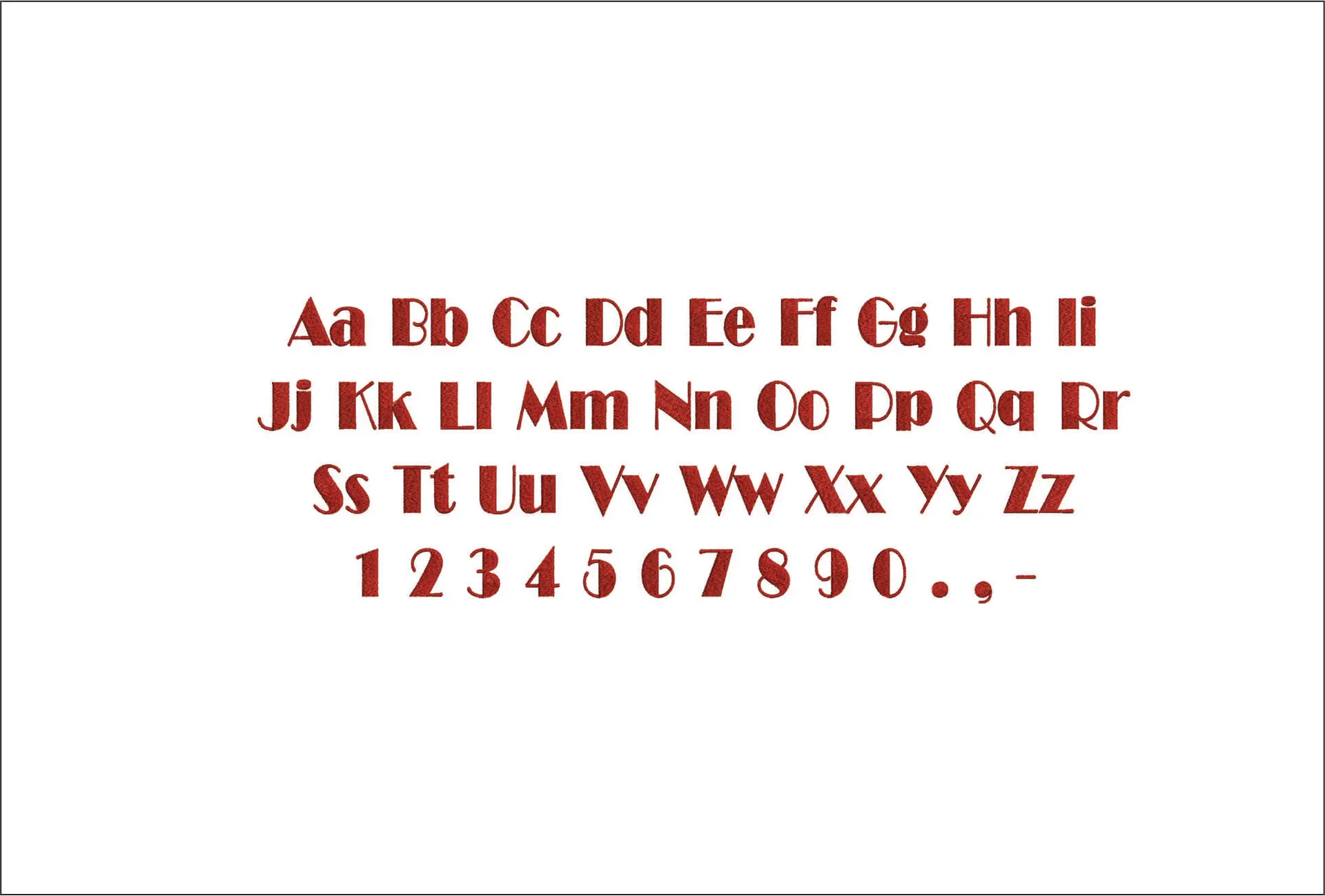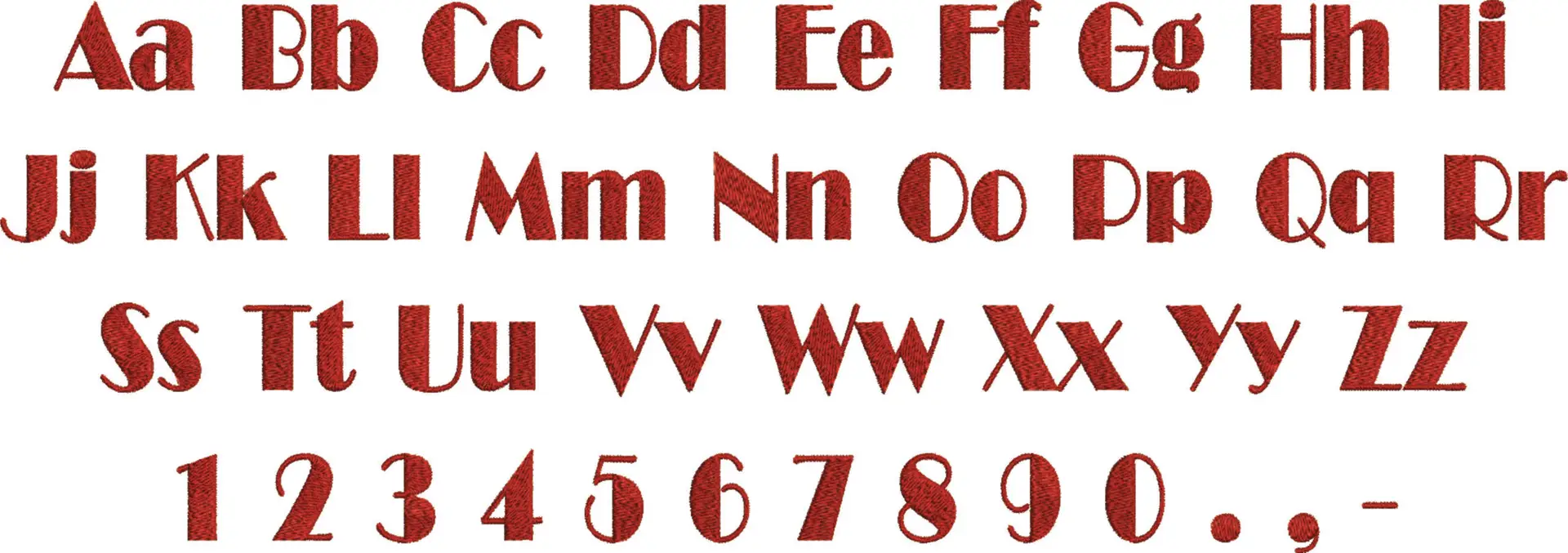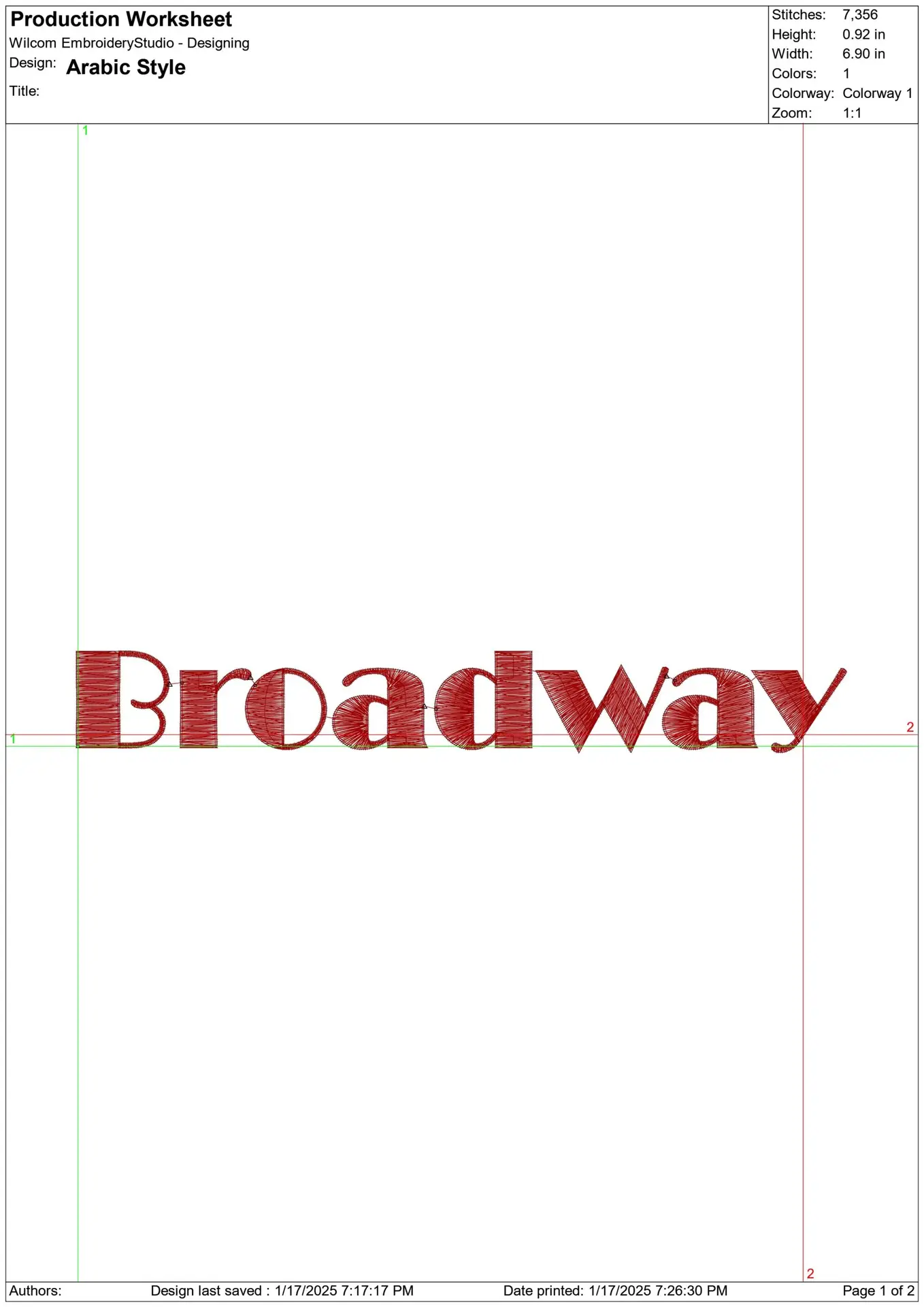
A sharp Art Deco embroidery alphabet that gives names, monograms and wording a clean Broadway-era look in bold single-colour stitching.
Add sleek Art Deco style to names, monograms and custom wording with this Broadway embroidery font set. The letterforms have that unmistakable theatre-marquee feel, with tall lines, stepped details and a polished vintage edge rather than a soft handwritten look. Shown in red with uppercase, lowercase, numbers and punctuation, it suits makers who want personalised stitching to look crisp, graphic and a little bit glamorous.
This is the kind of alphabet that works especially well on jacket fronts, sweatshirt chests, tote bags, linen napkins and smart gift items where you want the wording to carry the design. Because it uses a single thread colour and is a dense, heavily stitched style, the finish reads bold and solid, giving short names, initials and dates real presence. It stands out best on stable fabrics and pieces that suit a structured, clean-lined font.